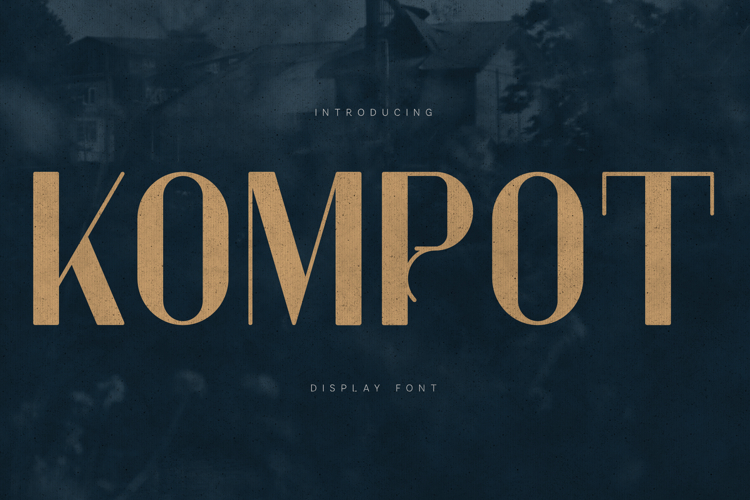
Komrot Elegant Vintage Display Serif Font
Komrot is an elegant vintage-inspired display serif font designed with strong vertical contrast, refined curves, and distinctive decorative terminals. The typeface combines classical serif structure with modern display proportions, creating a unique visual style that feels both timeless and contemporary.
The letterforms feature tall elegant proportions, subtle ornamental details, and expressive character shapes, giving the font a distinctive editorial presence. Each glyph has been carefully balanced to create harmony across words and lines, allowing typography to feel confident, sophisticated, and visually striking.
Komrot is designed primarily as a display font, making it especially effective in large typographic compositions where character and personality are important. The elegant shapes and stylized terminals create a memorable visual identity that works beautifully in design layouts requiring strong typographic presence.
The font works particularly well in projects such as:
• editorial layouts
• magazine headlines
• logo design
• branding systems
• packaging design
• poster typography
• visual identity projects
• modern vintage style graphics
The typeface includes uppercase characters, lowercase characters, numbers, punctuation, and extended multilingual support, allowing it to work across a wide range of languages and international design projects.
With its combination of elegant structure and expressive decorative details, Komrot offers designers a versatile display serif that can bring a sophisticated and distinctive typographic voice to modern design compositions.